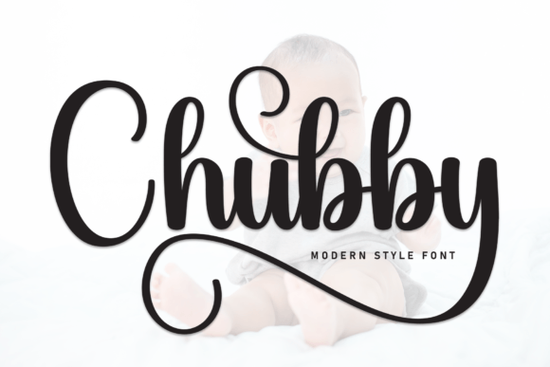
If you've been searching for a handwritten font that feels warm, approachable, and easy to work with, the Chubby Font is worth a closer look. It's a sweet, friendly typeface with a natural hand-lettered feel that works across a surprisingly wide range of design projects. Whether you're building a brand identity, designing printables, or creating products for your Etsy shop, this font brings a casual charm that's hard to fake with standard typefaces.
What makes the Chubby Font stand out from other handwritten fonts?
Most handwritten fonts fall into two camps: they're either too polished and lose that handmade quality, or they're so rough that they become hard to read at smaller sizes. Chubby sits in a comfortable middle ground. The letterforms are rounded and soft without feeling sloppy. Each character has enough variation to look genuinely hand-drawn, but the overall consistency means you can use it in body text or on products where legibility actually matters.
It's also worth noting that Chubby has a friendly, inviting personality. It doesn't try to be edgy or overly stylized. That simplicity is actually its strength it plays well with other design elements without competing for attention.
What types of projects is Chubby Font best suited for?
This is where the font really shines. Because of its versatile, approachable style, Chubby works well across a broad range of creative projects:
- Greeting cards and invitations birthday cards, baby shower invites, thank-you notes
- Print-on-demand products t-shirts, mugs, tote bags, and stickers
- Social media graphics Instagram quotes, Pinterest pins, story templates
- Brand logos and packaging especially for small businesses with a friendly, down-to-earth vibe
- Digital planners and journals headers, section titles, decorative text
- Kids' designs classroom materials, party decorations, nursery wall art
- Blog graphics and website banners a casual alternative to rigid sans-serifs
If you run a small business or sell digital products, a font like Chubby can help you create a consistent visual identity without hiring a designer for every single asset. Pair it with clean sans-serif fonts for a balanced, professional-yet-personal look.
How does Chubby compare to similar fonts on Creative Fabrica?
Creative Fabrica has a large library of handwritten and script fonts, so it's natural to wonder how Chubby stacks up. Here's a quick comparison with a few other popular options:
If you want something with a bouncy, playful script feel, Hey Baby is a fun alternative. It has more movement and swash than Chubby, which makes it great for feminine branding or party invitations. For a more rustic, country-inspired look, the Country Kitchen font leans into a farmhouse aesthetic that works beautifully for kitchen-themed designs and home décor projects.
Need something with bold, flowing strokes? The California font brings a signature-style elegance that pairs well with fashion and lifestyle branding. And if you're after a clean, everyday script, the Masterday font offers a more structured handwritten look that's easy to read at various sizes.
For those who prefer something minimal and understated, the Simple Signature font keeps things clean with thin, refined strokes a nice contrast to Chubby's rounded, heavier letterforms.
Each of these fonts serves a slightly different purpose. Chubby's sweet spot is its universality it doesn't lean too far in any one direction, which makes it a reliable go-to for everyday design work.
Where can I use the Chubby Font commercially?
One common question designers and sellers have is about licensing. Creative Fabrica offers fonts with a commercial license included, which means you can use Chubby Font in products you sell whether that's physical merchandise, digital downloads, or client work. Always double-check the specific license terms on the product page before using any font commercially, but Creative Fabrica generally makes this straightforward.
This is especially important for print-on-demand sellers and Etsy shop owners who need to know their font choices won't cause legal headaches down the road.
Tips for pairing Chubby Font with other typefaces
A handwritten font like Chubby works best when you pair it intentionally. Here are a few combinations that tend to work well:
- Chubby + a clean sans-serif (like Montserrat or Poppins) for logos and headers
- Chubby + a simple serif for printed materials with a warm, editorial feel
- Chubby alone for short, punchy text on products like stickers or t-shirt designs
A good rule of thumb: use Chubby for emphasis headlines, names, short phrases and let a more neutral font handle longer paragraphs.